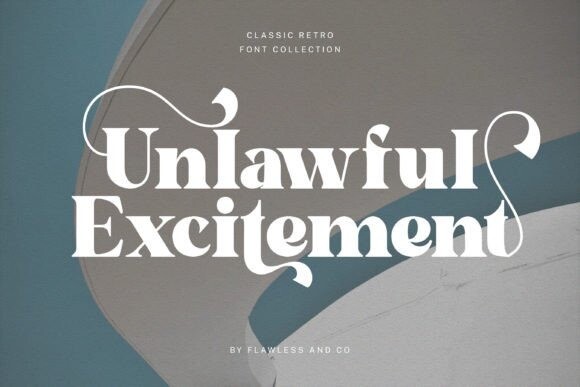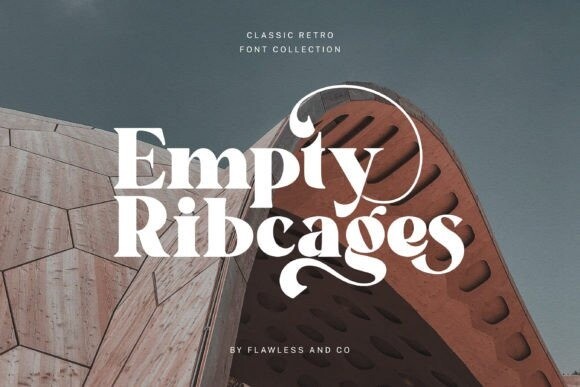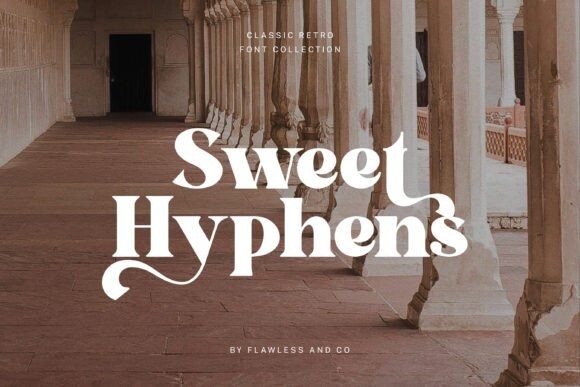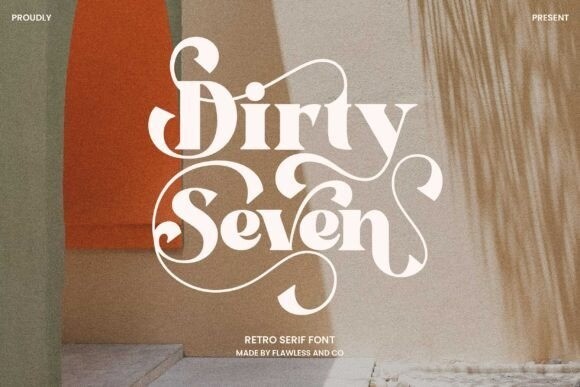
Dirty Seven Font
Dirty Seven Font is a stylish modern typeface created by Flawless And Co with a touch of vintage. Step into the nostalgia of yesteryear with “Dirty Seven,” a retro serif typeface that pays homage to the timeless charm of vintage typography. With its bold serifs and distinctive character, This font is designed to infuse your designs with a sense of retro authenticity and style.